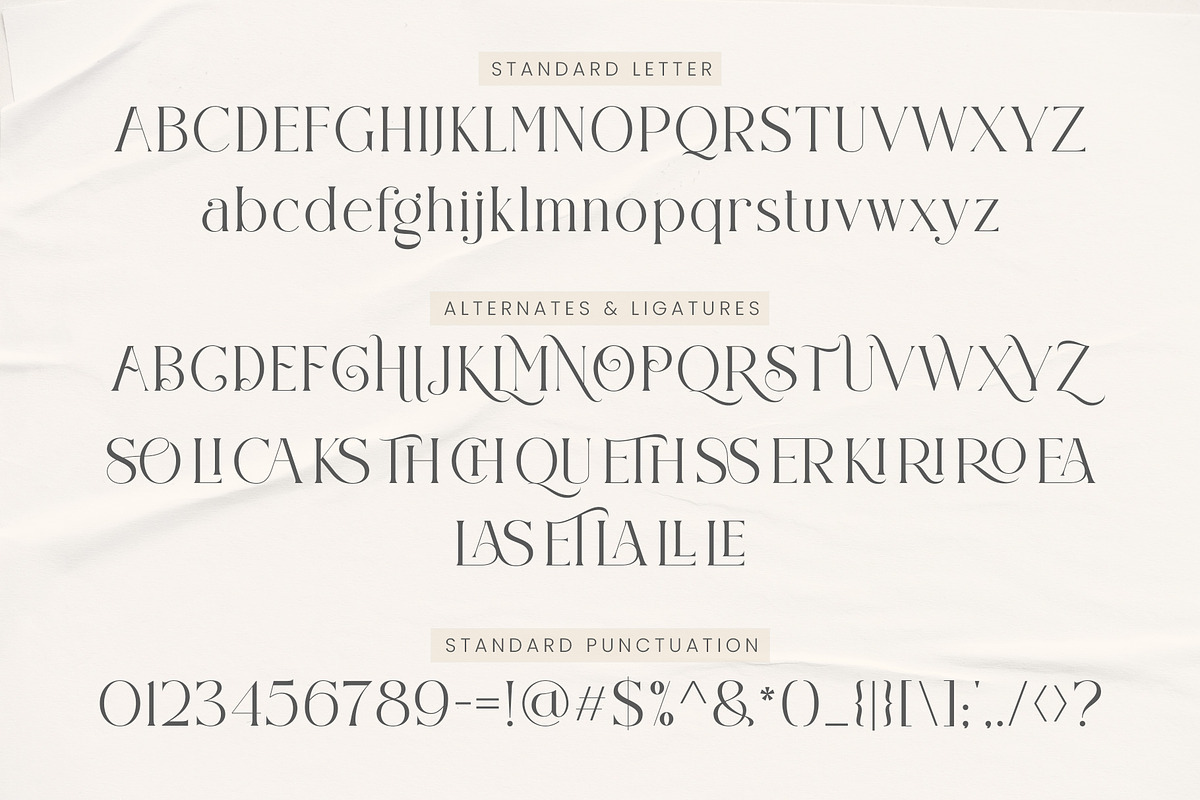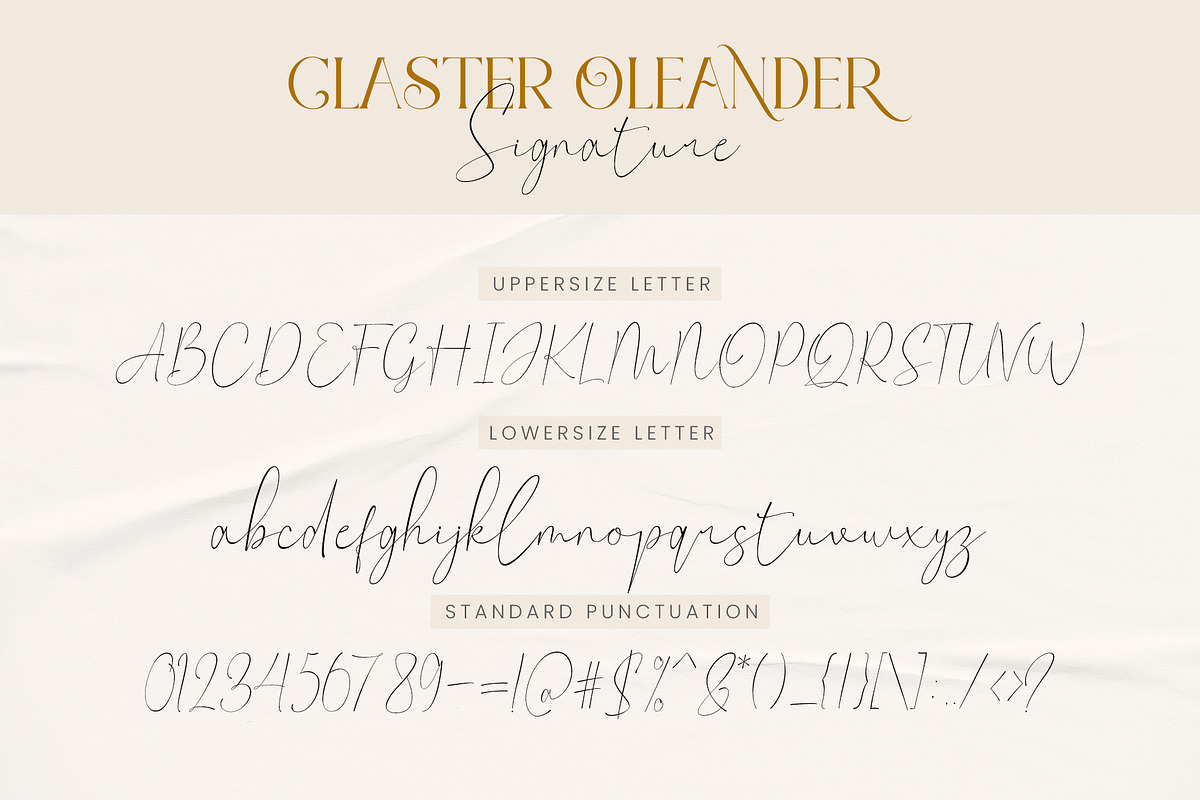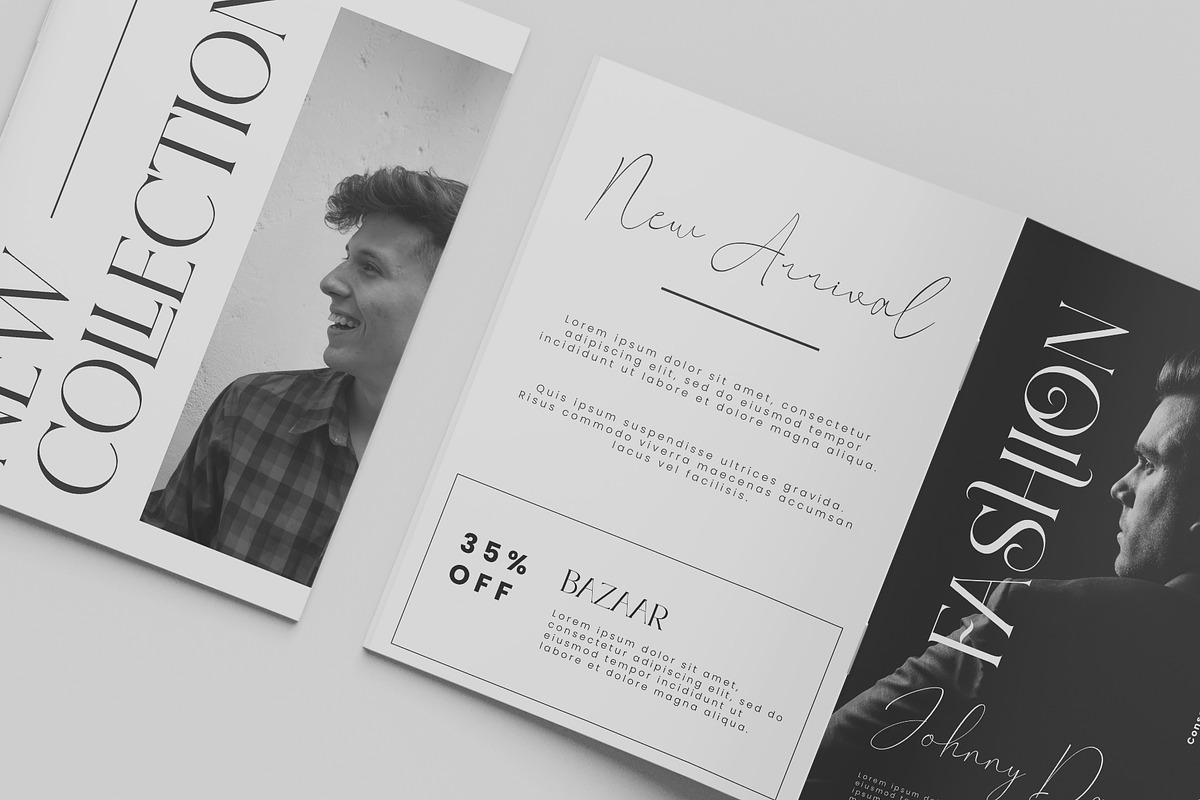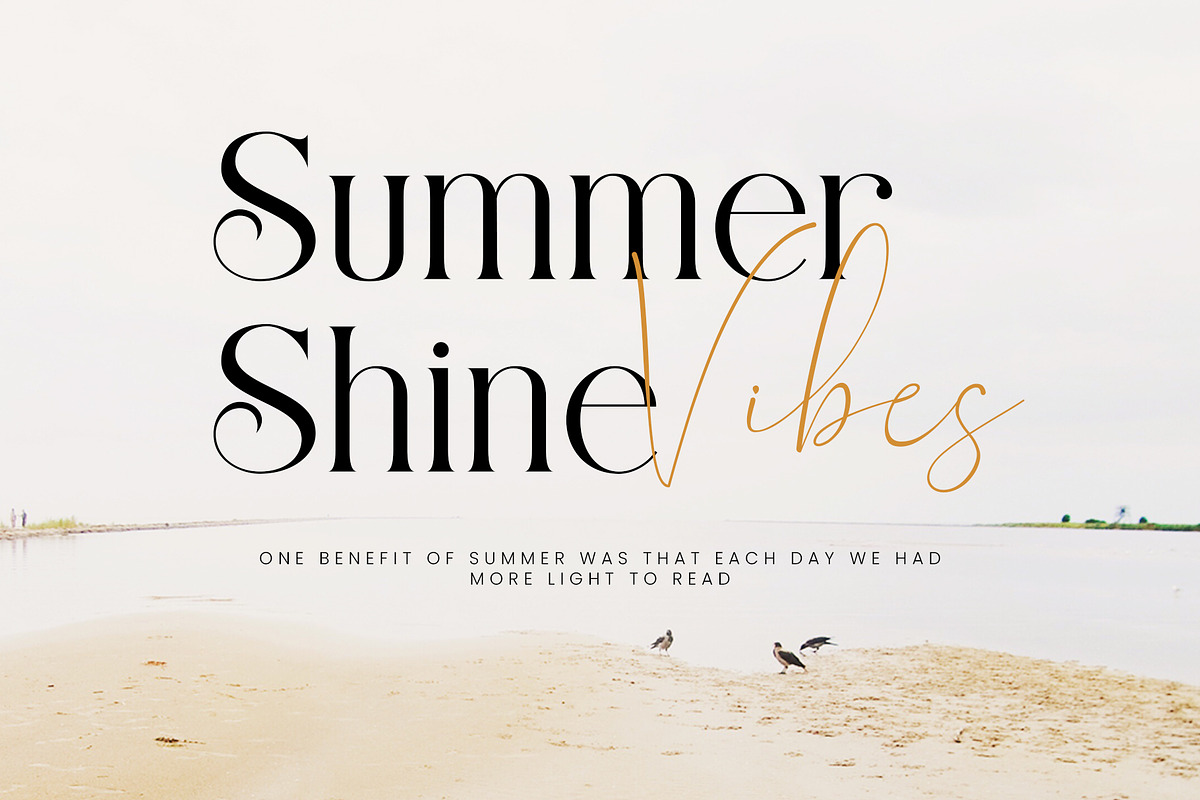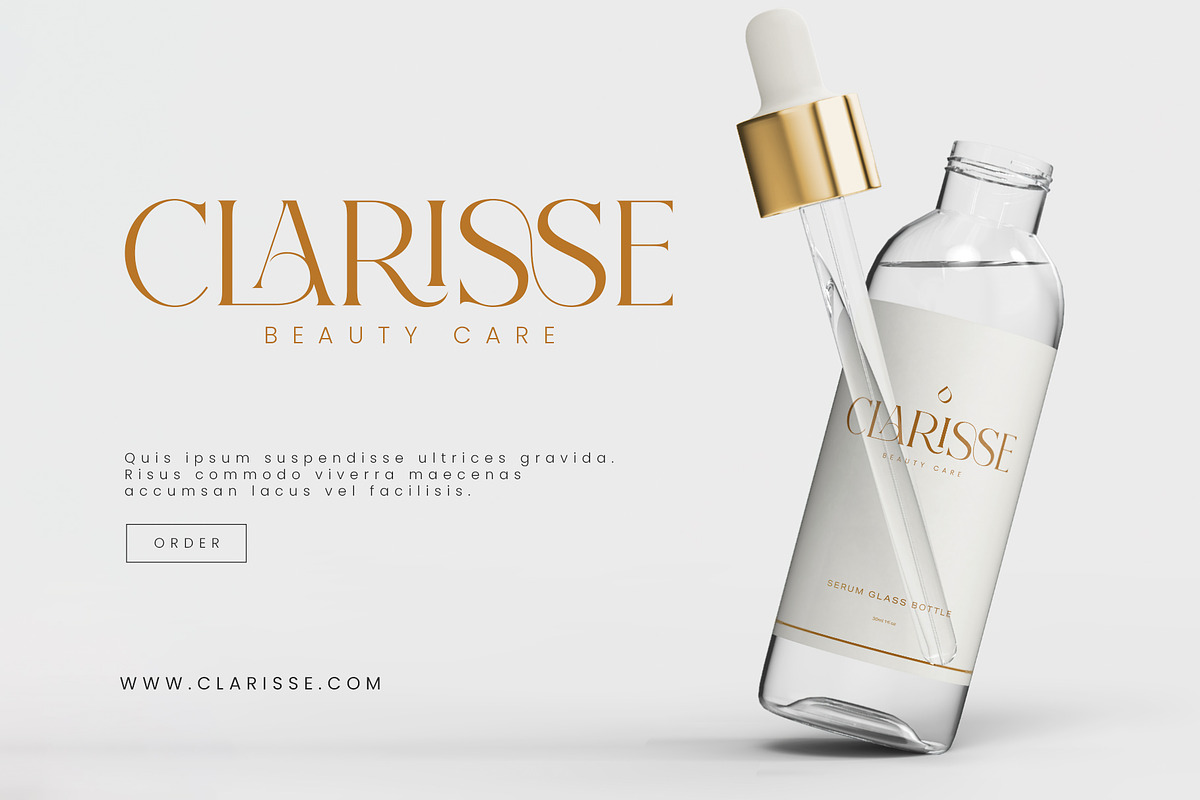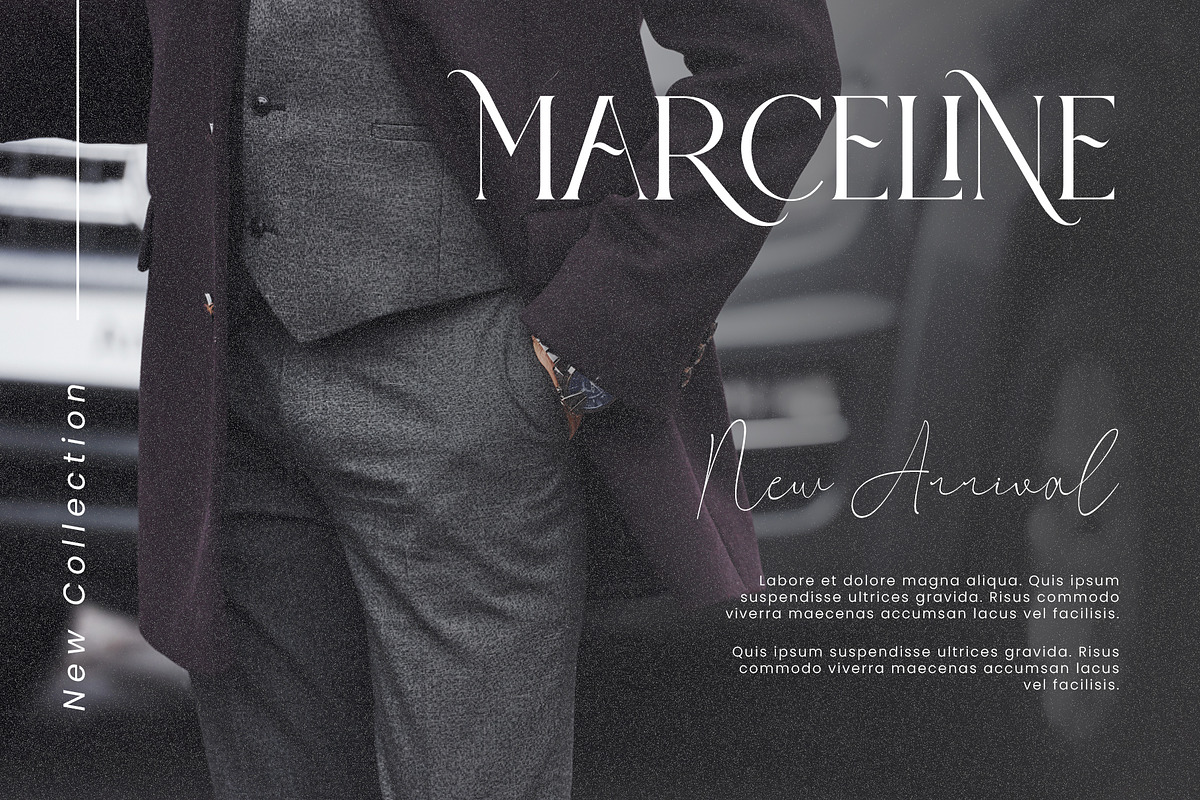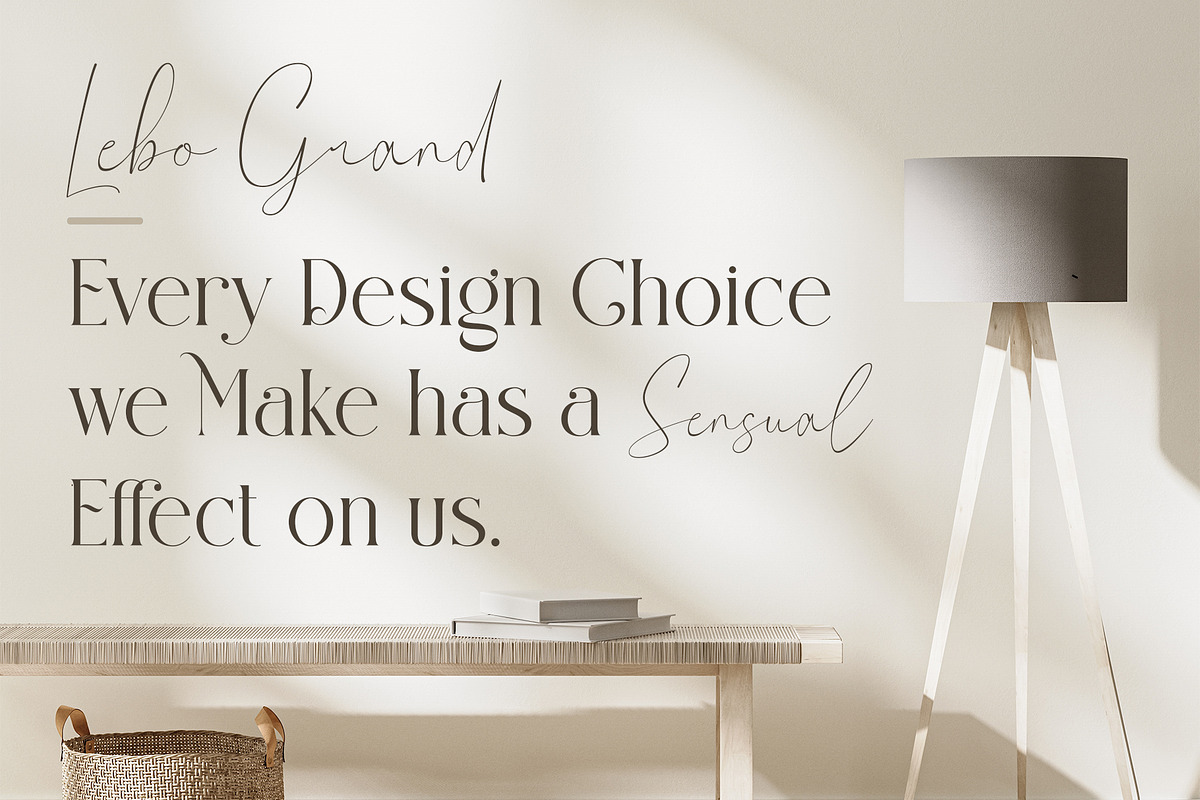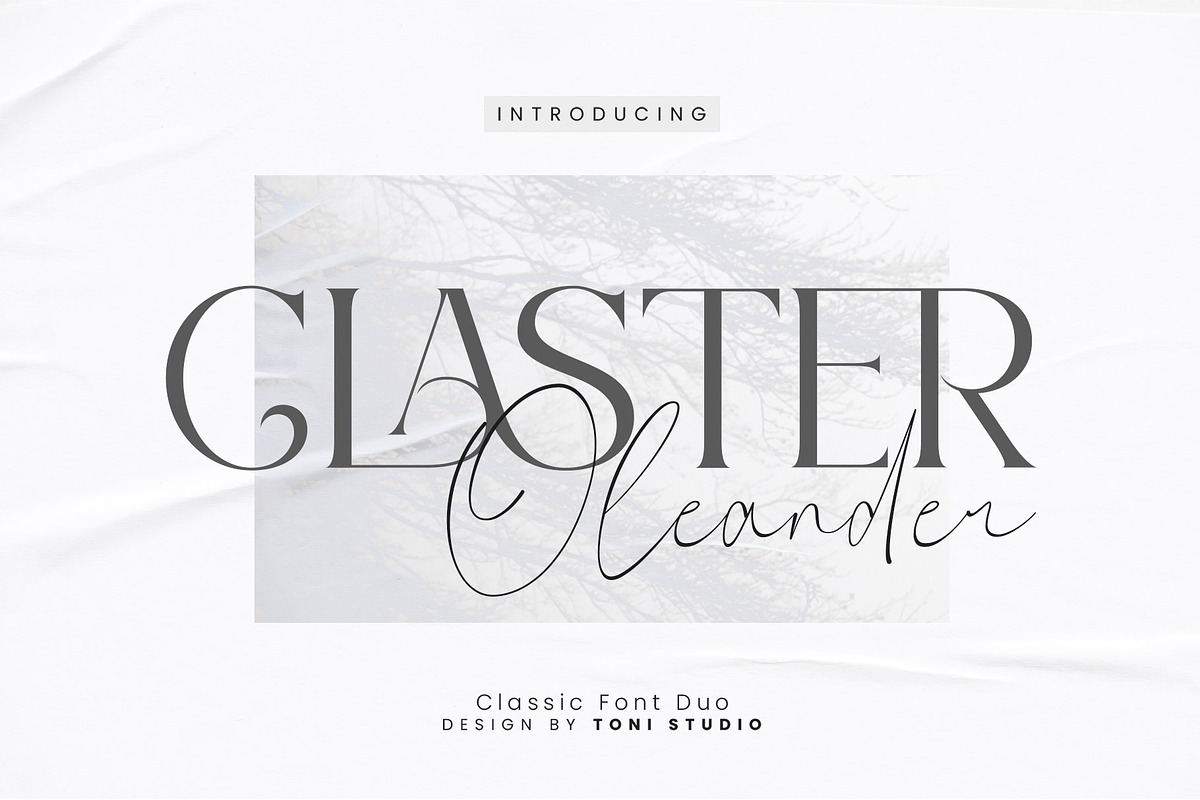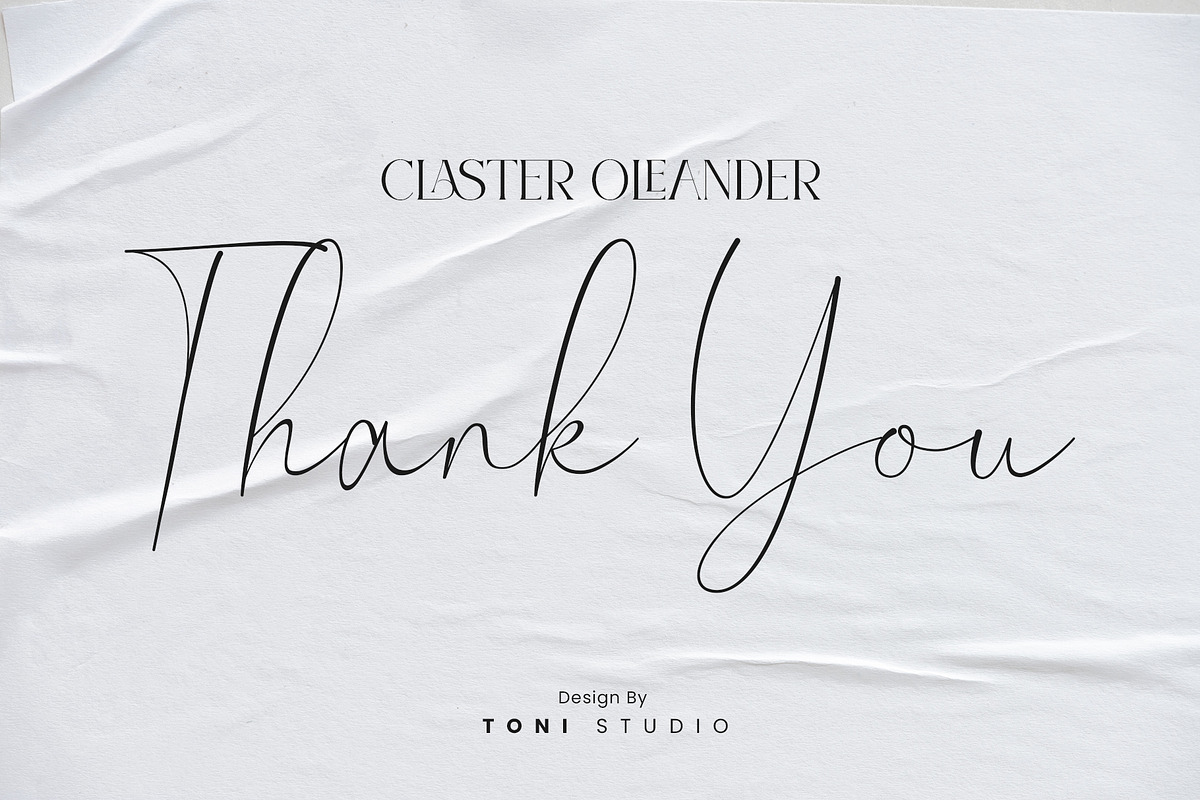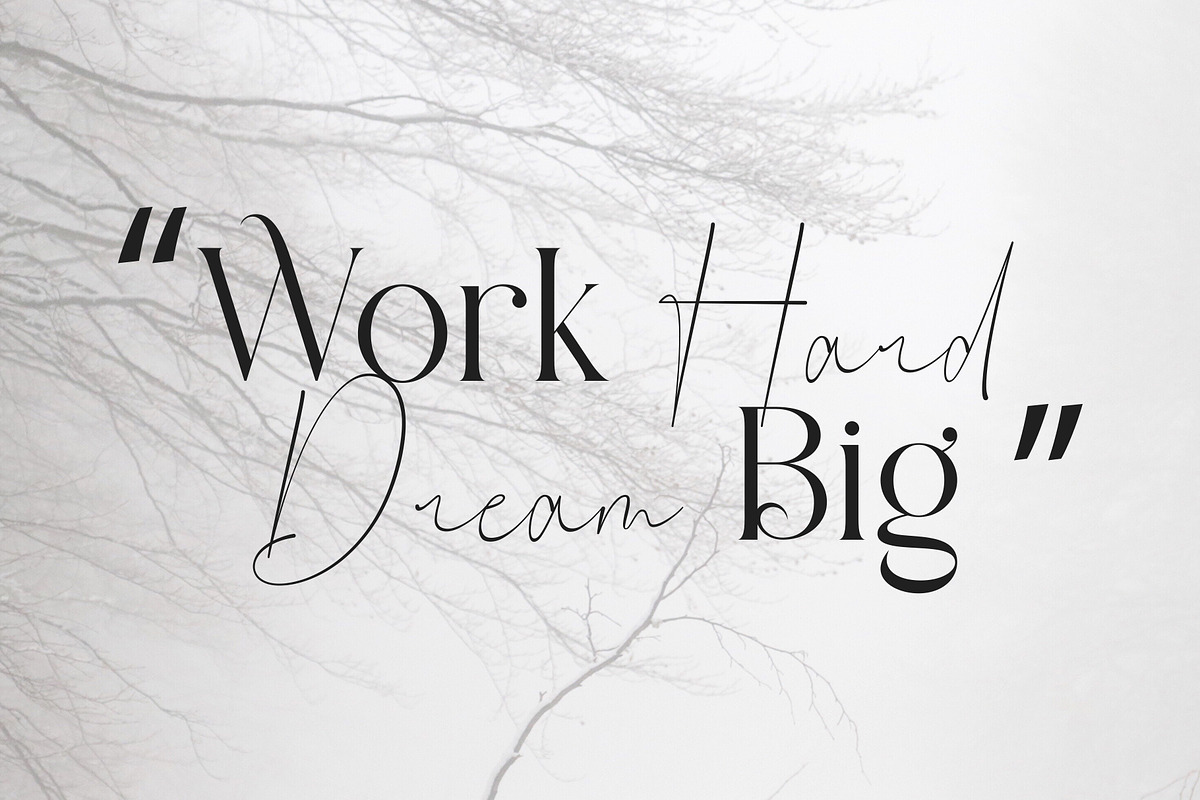
Claster Oleander
Introducing Claster Oleander Font Duo, a classic serif typeface that has been modernized with elegant curves paired with handwritten script. With a modern look, Claster Oleander brings classy and luxurious style to your website, modern logos, brand identity, social media quotes, wedding stationery and anything you want to get the perfect result for your project!